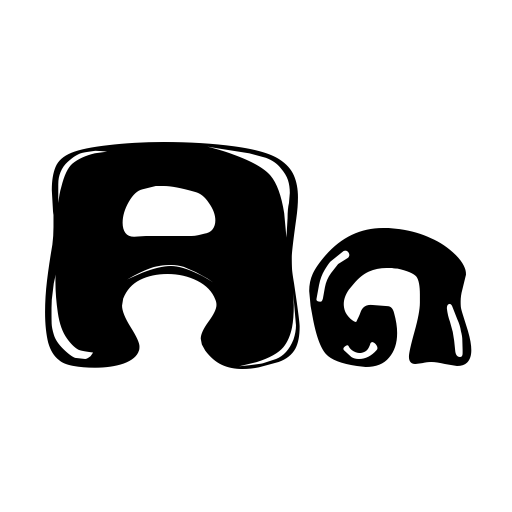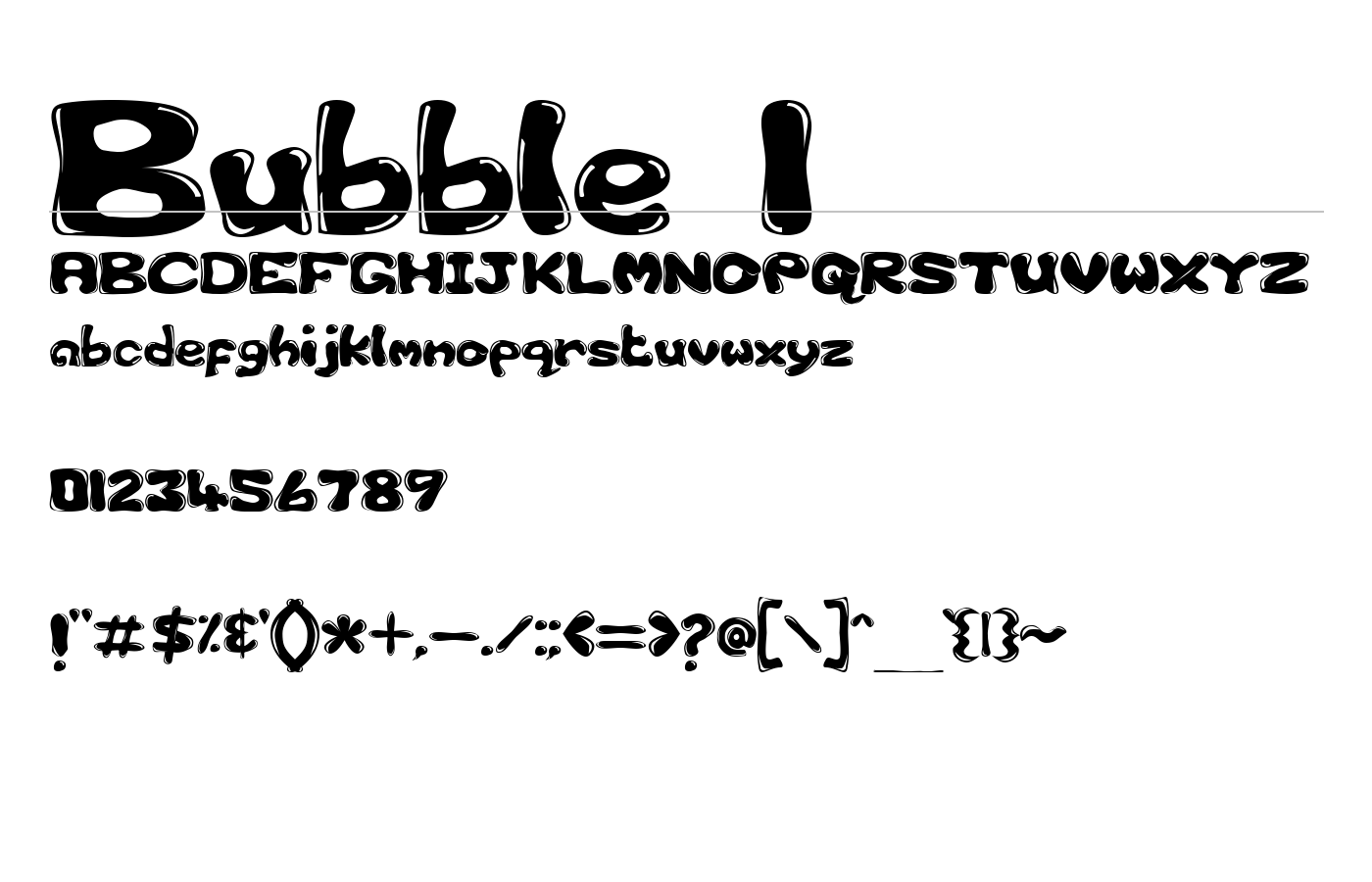
Bubble 1 is a playful and bold display font characterized by its rounded, inflated letterforms that resemble soft bubbles. Its thick, irregular strokes and quirky shapes give it a fun, informal personality, making it perfect for creative projects, children’s materials, and casual branding that seeks a lively and approachable vibe. This font stands out best in headlines, logos, and posters where a lighthearted and eye-catching style is desired.
Bubble 1 Font